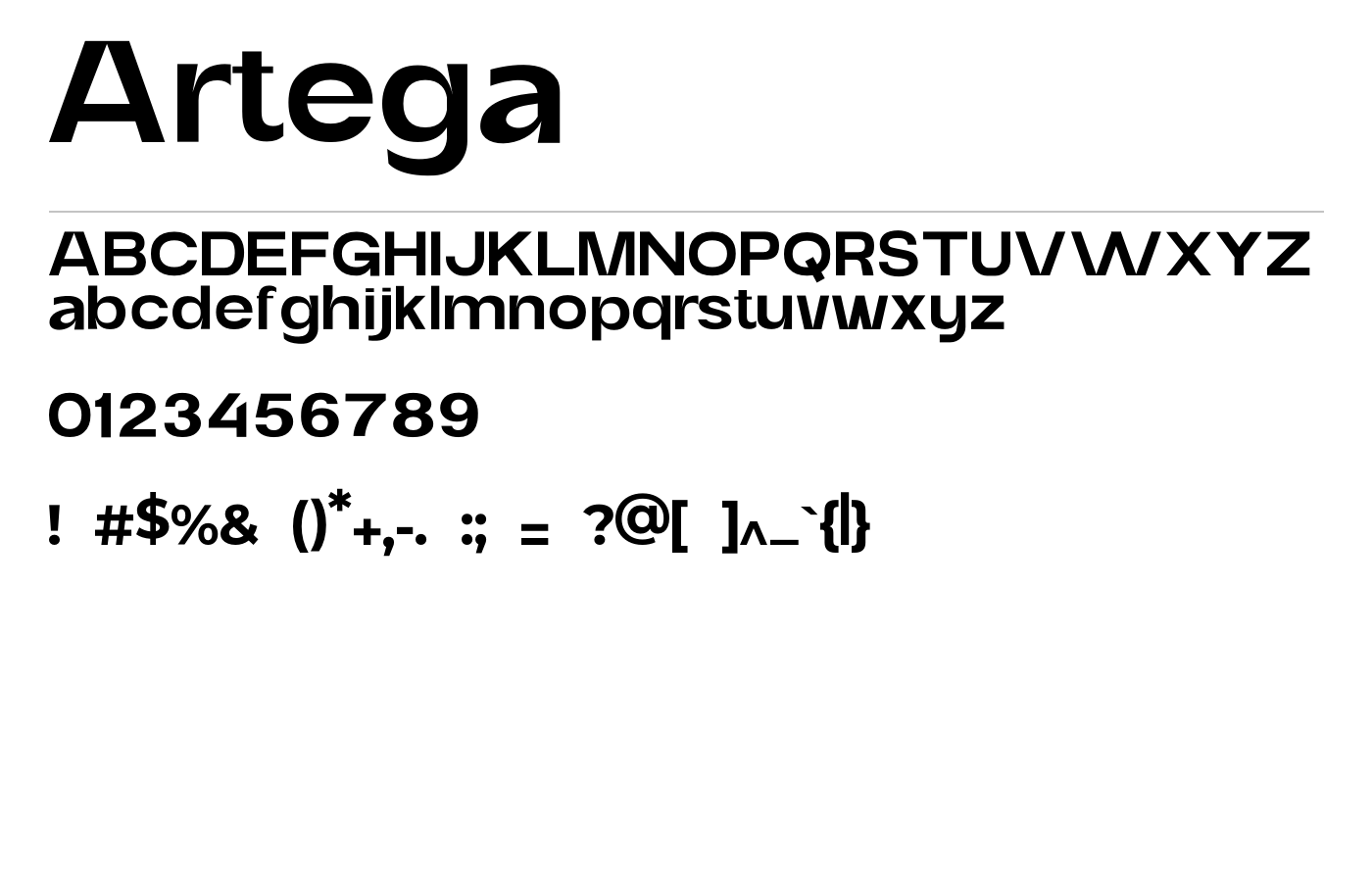
Artega is a bold, geometric sans serif font with clean, sharp lines and a contemporary feel. Its strong, balanced letterforms and well-proportioned characters make it ideal for modern branding, headlines, and editorial use where clarity and impact are key. This font works well for projects seeking a confident, professional, yet approachable look.
Artega Font
About Artega Font
| Font family | Artega Font |
| Designer | Abdul A |